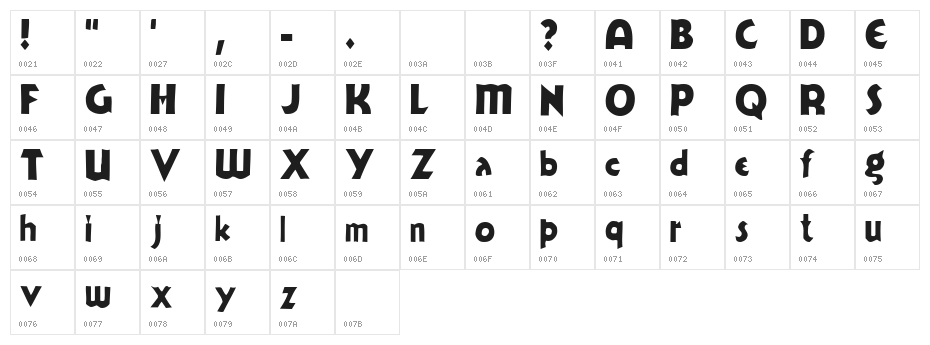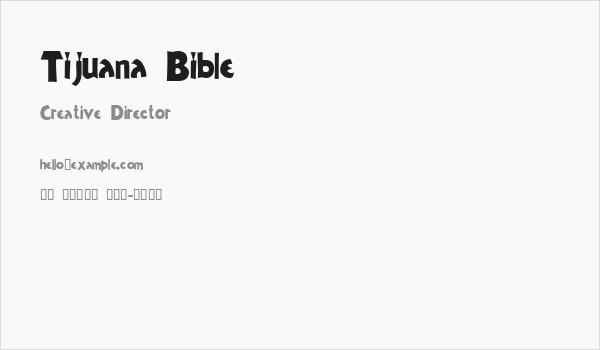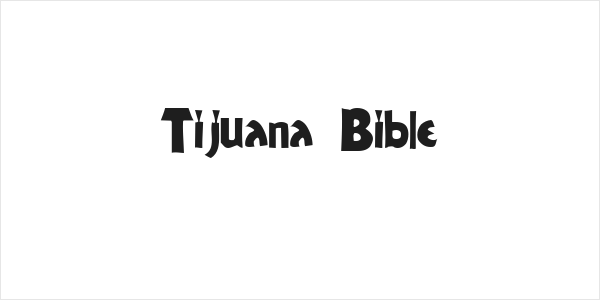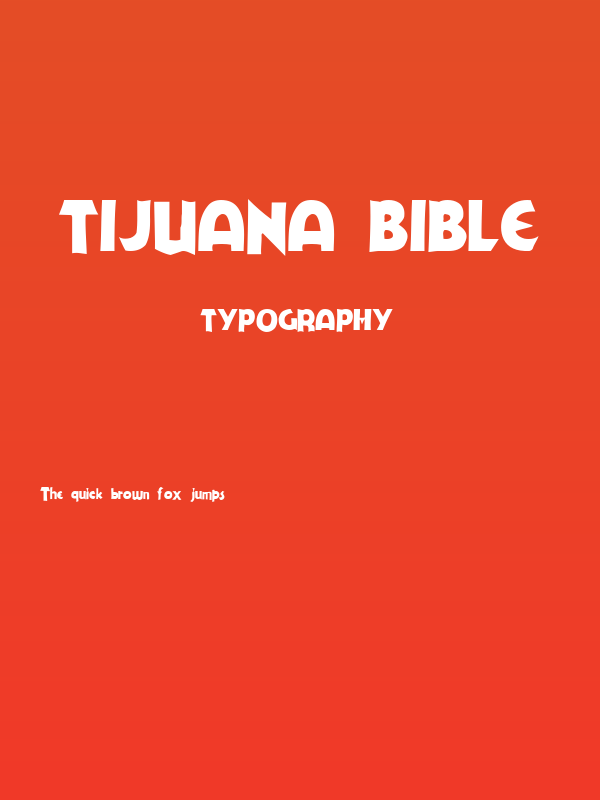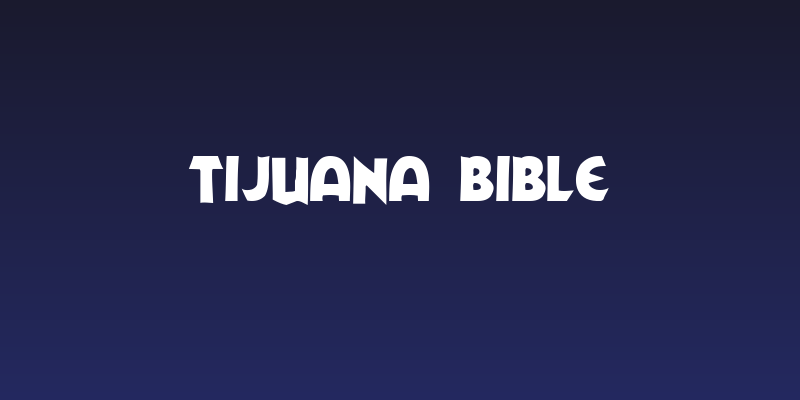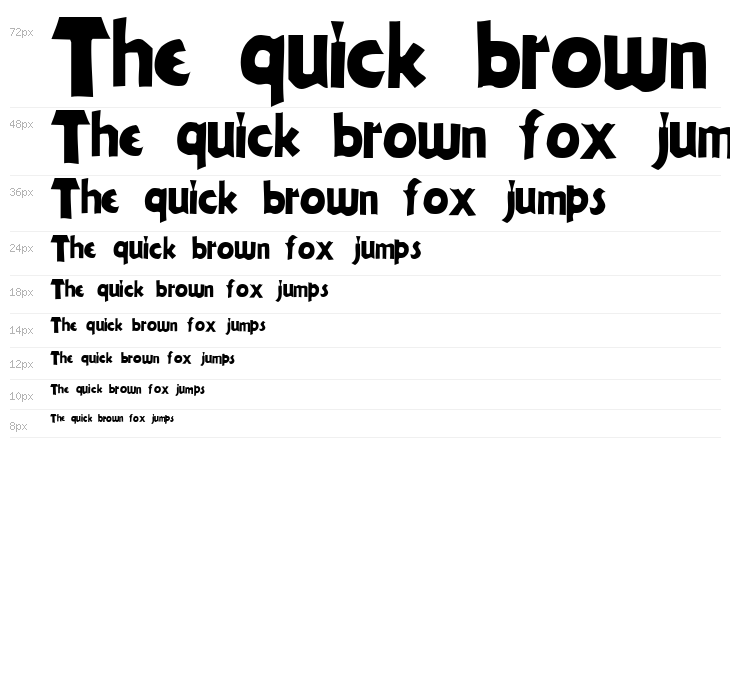
Tijuana Bible Font
Tijuana Bible Description
This font features a bold and dynamic style with a strong presence. The characters are thick and slightly angular, giving them a unique and playful appearance. The uppercase letters are particularly striking, with a consistent weight that makes them stand out. The lowercase letters maintain the same boldness, with some characters having distinctive curves and angles that add to the overall quirky aesthetic. The numbers and special characters follow the same design principles, ensuring a cohesive look across all elements. This font is ideal for projects that require a bold and eye-catching typeface.
| Overall Style | Retro, Playful |
| Proposed Projects | Ideal for posters, comic book titles, retro-themed designs, and branding that requires a bold statement. |